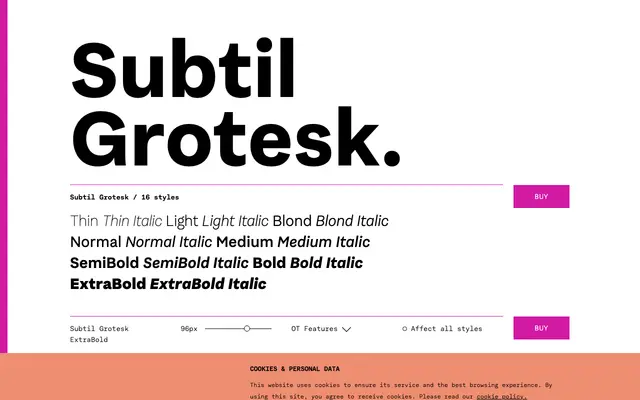
Subtil Grotesk
A clean grotesque sans in eight weights with matching italics and a thorough set of OpenType features including multiple figure styles and stylistic alternates.
Sixteen styles span Thin through ExtraBold, each paired with an italic, giving a well-rounded workhorse range for editorial and text use. OpenType features include lining, oldstyle, tabular and proportional figures, fractions, superscripts, subscripts and a selection of character alternates for a, g, l, y, Q and R. Latin Extended coverage handles most Western and Central European languages.
A grotesque sans-serif with 16 styles across eight weights, each with a matching italic, typical of the European grotesque tradition with humanist-leaning alternates available via OpenType features.